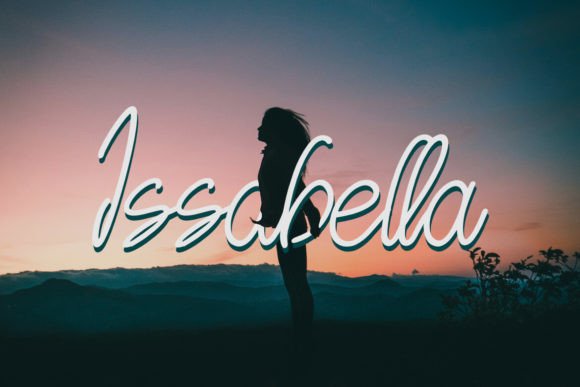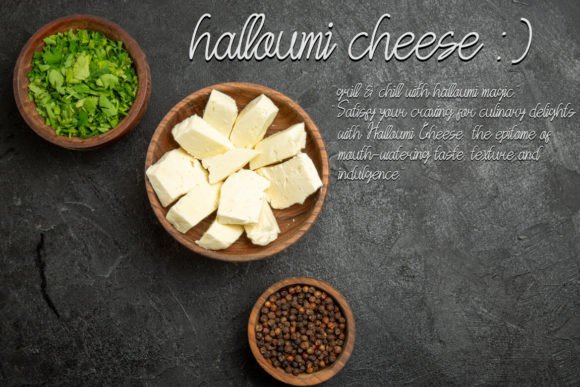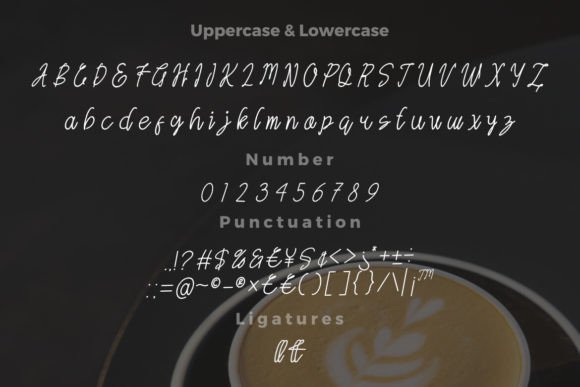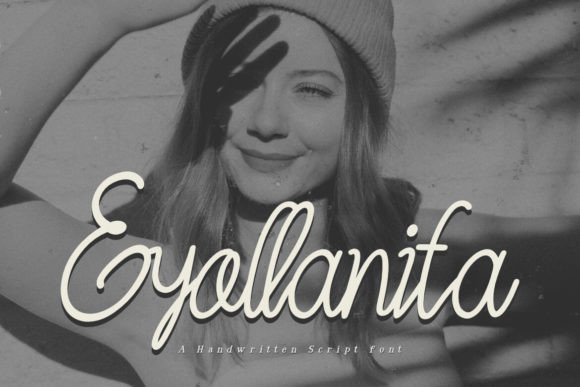
Introduction to Eyollanita Font
**Eyollanita Script Font**, inspired by Script typography.
This font is made with a high premium quality level which you can use as flyers, quotes, posters, banners, packaging, merchandise, logotypes, and much more .
Key Features of Eyollanita Font
Why Choose Eyollanita Font?
Eyollanita Font offers exceptional quality and versatility, making it a valuable addition to your design toolkit. Whether you’re creating for personal projects or commercial use, Eyollanita Font delivers professional results.